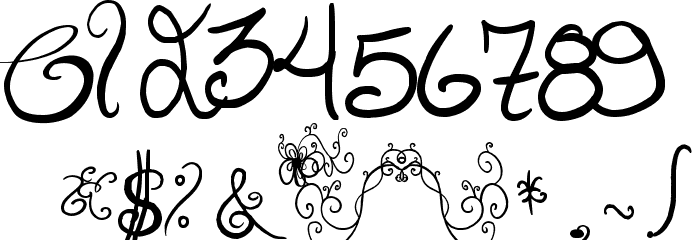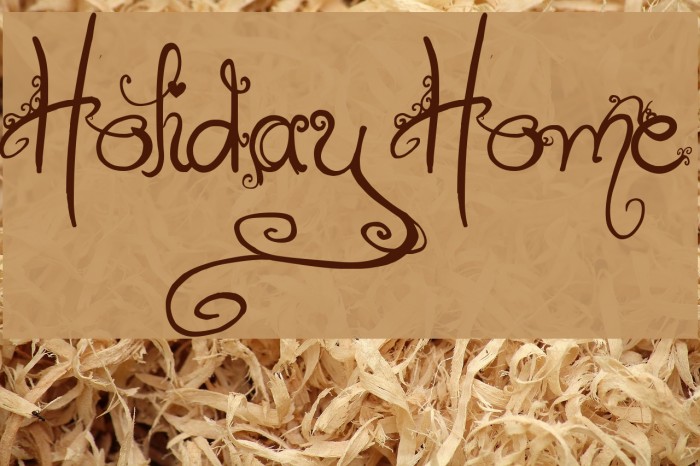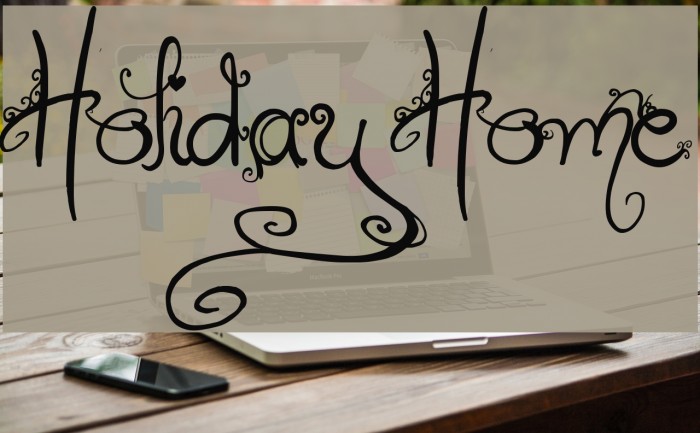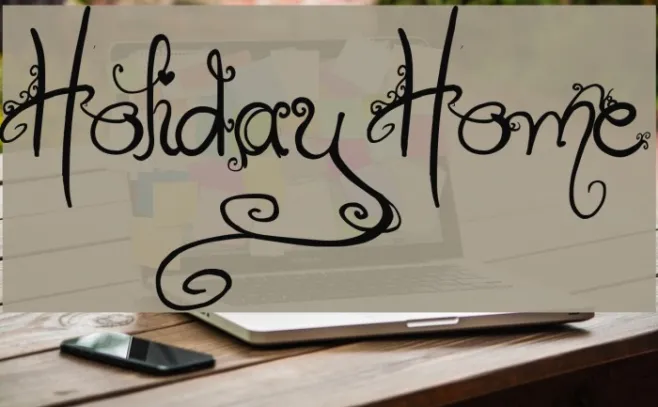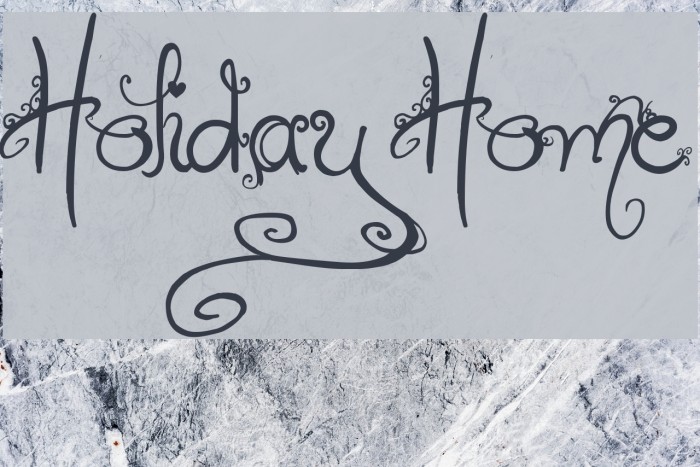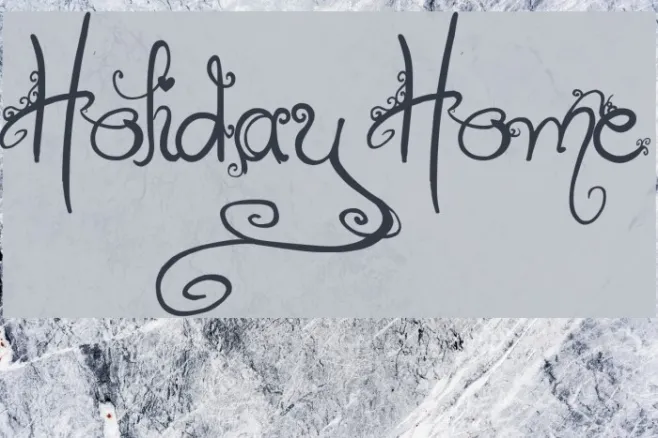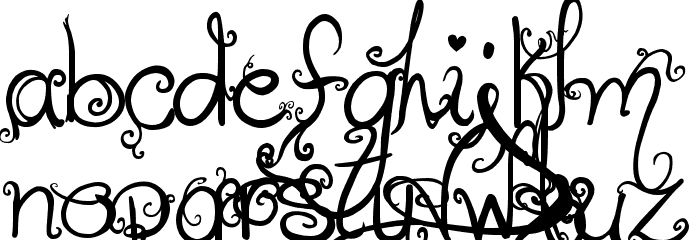
Holiday Home Font
Holiday Home Description
This whimsical and decorative font features intricate swirls and flourishes that extend from each character, creating a playful and ornate appearance. The uppercase letters are bold and expressive, with each letter adorned with unique embellishments that add a touch of elegance and fantasy. The lowercase letters maintain the same decorative style, ensuring consistency throughout the typeface. Numbers and special characters are equally adorned, making this font suitable for creative and artistic projects. The overall design is reminiscent of fairy tales and magical themes, making it ideal for use in invitations, greeting cards, and other festive materials.
| Use Case | Headlines, Logos, Invitations |
| Proposed Projects | Ideal for invitations, greeting cards, holiday themes, and artistic projects. |